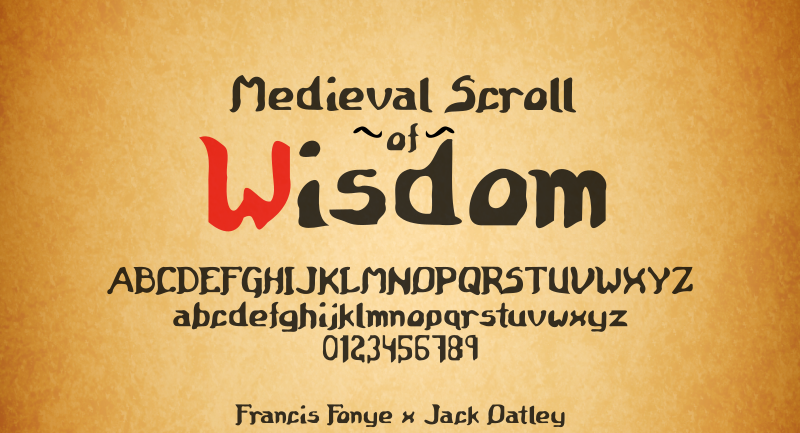
This font " Medieval Scroll of Wisdom" is created by Francis Fonye & Jack Oatley. Co-member of Bitty/Brixdee on http://www.dafont.com/profile.php?user=764521 This font is inspired by Octavius, a font previously created by Jack Oatley, which has been revised by Francis Fonye to give it a new look. It is 100% free to use, though credit is appreciated and it'd be cool to know where you used it. You must not claim it as your own. The background picture was made by or obtained from: http://clipart-library.com/clipart/riLo8zrrT.htm Note: the background image has been used to demonstrate the free to use font only and therefore has not been used commercially. |